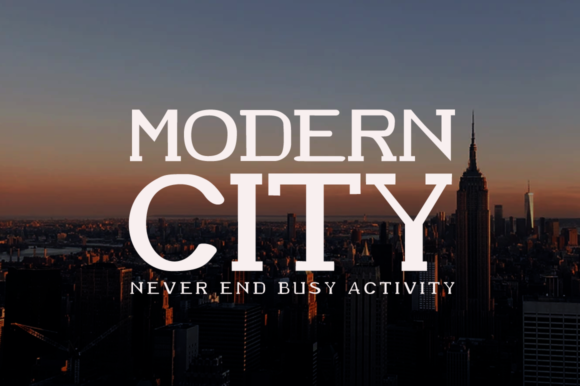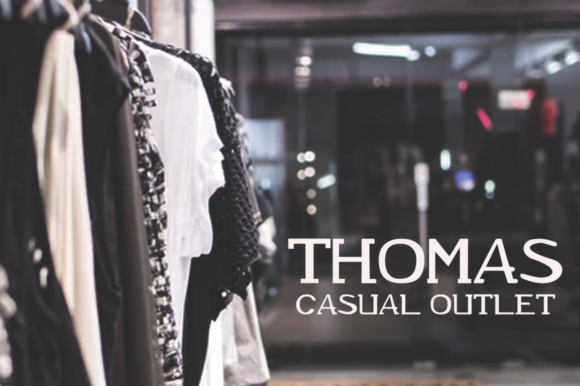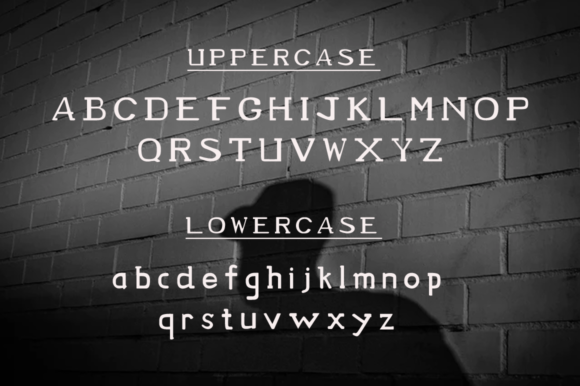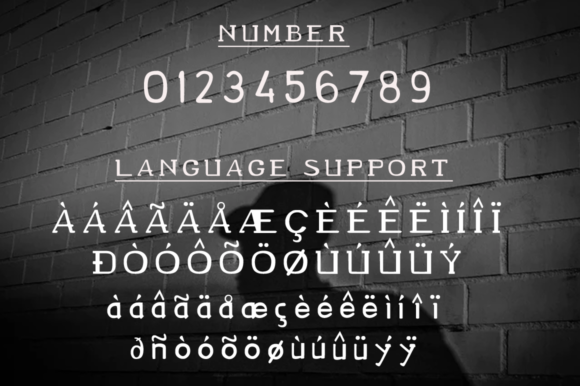
Bolero Font
BOLERO FONT SPECIMEN
Bolero is a cute and simple slab serif font. No matter the topic, this font will be an incredibly asset to your fonts’ library, as it has the potential to elevate any creation.